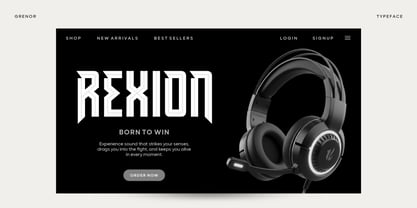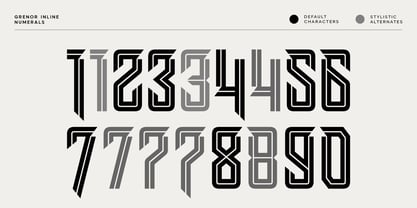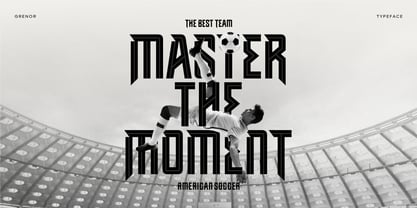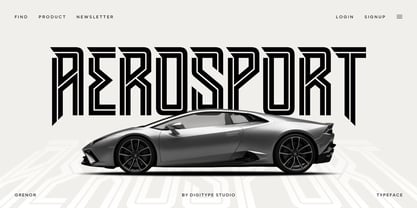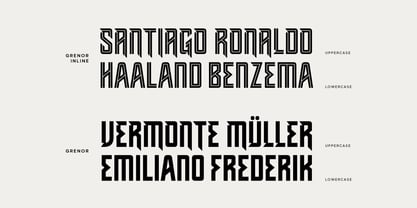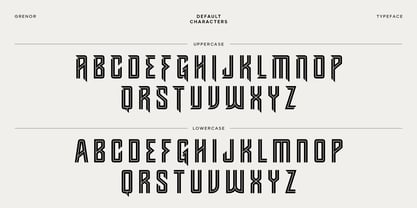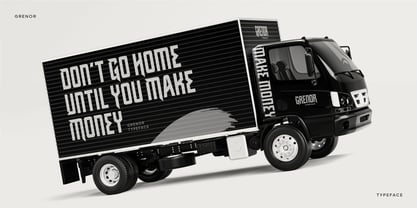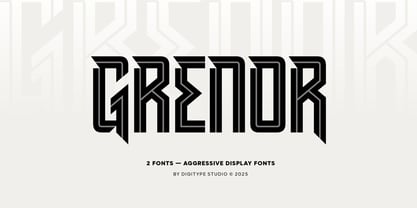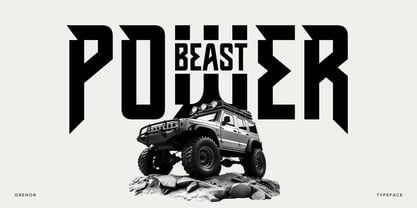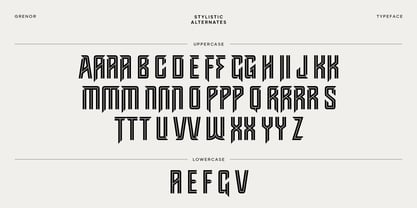
Grenor Inline
by Digitype Studio
The Grenor Inline Font Family was designed by Yusuf Niky Syahroni and published by Digitype Studio. Grenor Inline contains 2 styles and family package options. More about this family
GRENOR is an aggressive display font with a futuristic style, available in two variants: Inline and Solid. The Inline version features a bold center line that creates a technical and modern look, while the Solid version offers a heavier, more powerful appearance. Each character is crafted with geometric shapes and sharp angles, giving the font a strong and contemporary presence. Its distinctive, energetic structure makes GRENOR ideal for headlines, logos, posters, esports visuals, and any design project that requires a bold and impactful identity.
Designers: Yusuf Niky Syahroni
Foundry: Digitype Studio